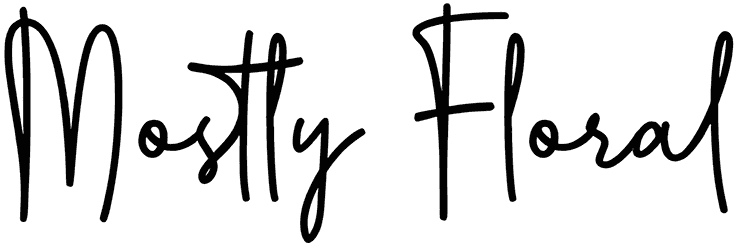
Mostly Floral Font
There has to be something special about the handwritten style of Mostly Floral that makes it so eye-pleasing. Dance teacher business cards, restaurant menus, and captions for social media photos, this cursive font can’t do anything wrong.
With such a casual yet so tasteful look, how can you not be into Mostly Floral? You can’t ask this script font for any numbers, but so what? Its delicate letter design is all that you need in your typography.